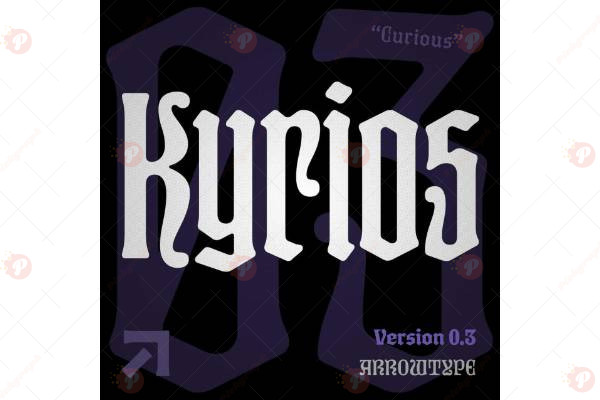
Kyrios Font Free
The Kyrios Font Free is a modern and stylish display typeface designed to make your projects stand out. With its unique letterforms, bold presence, and contemporary styling, this font is perfect for logos, posters, headlines, album covers, branding, and social media graphics.
Its artistic yet professional design makes it versatile for both digital and print projects. Whether you’re creating fashion branding, creative advertising, or event posters, the Kyrios Font Free adds a fresh and eye-catching vibe to your work.
• Typeface: Display / Modern
• Style: Bold / Stylish / Contemporary / Creative
• Perfect for: Logos, Posters, Branding, Album Covers, Social Media, Advertising
Bring a creative spark to your typography with the Kyrios Font Free – the perfect display font for modern designers. ✨